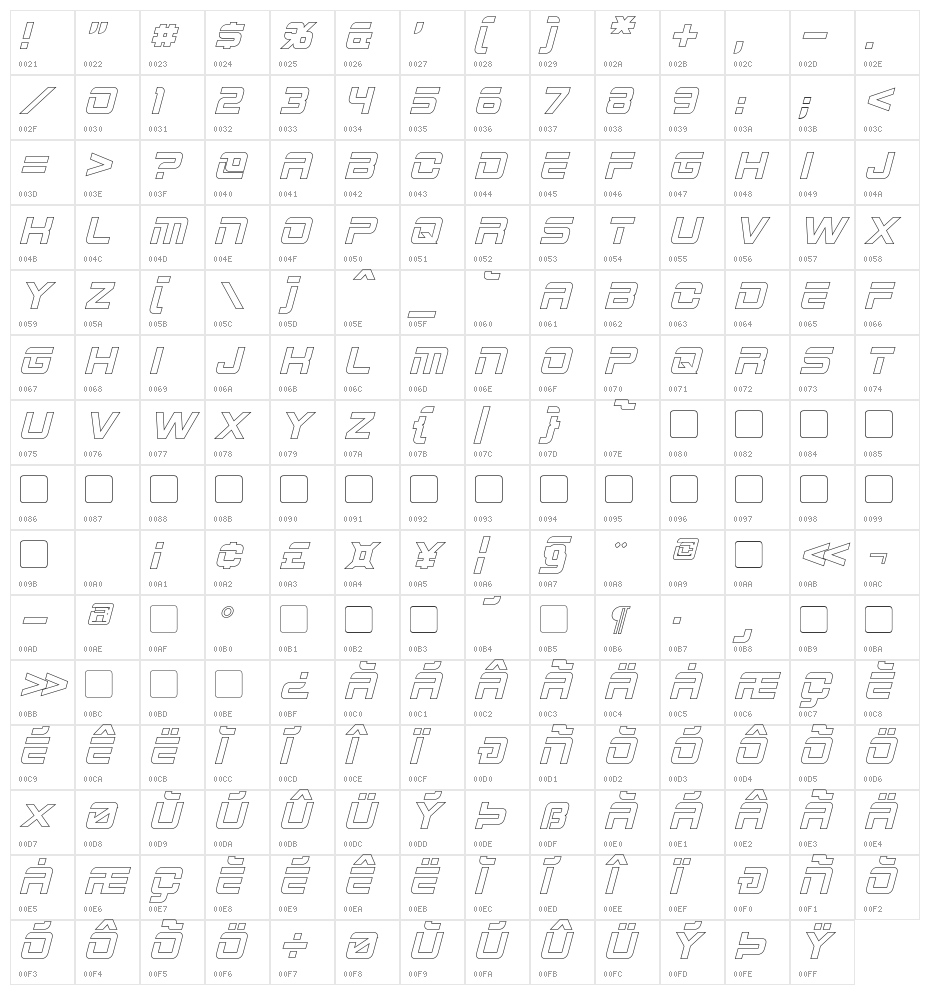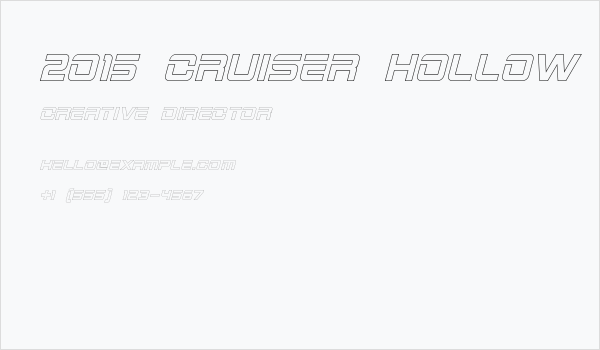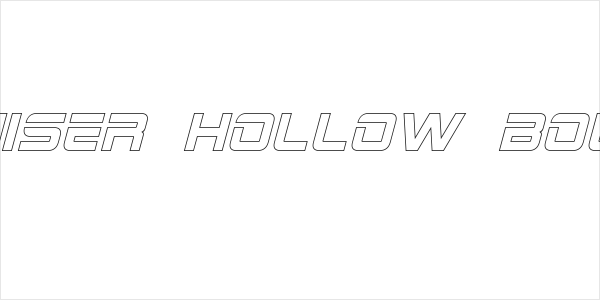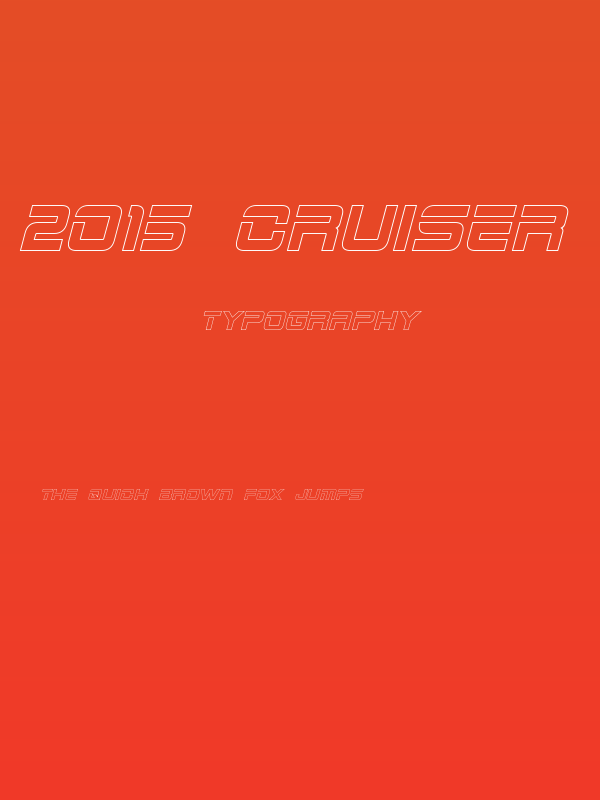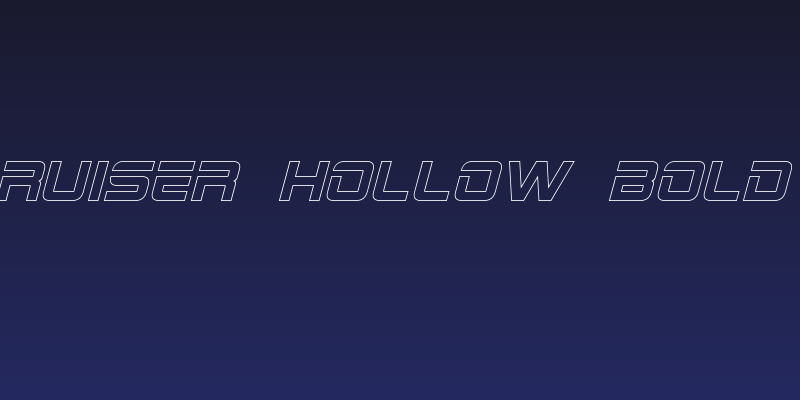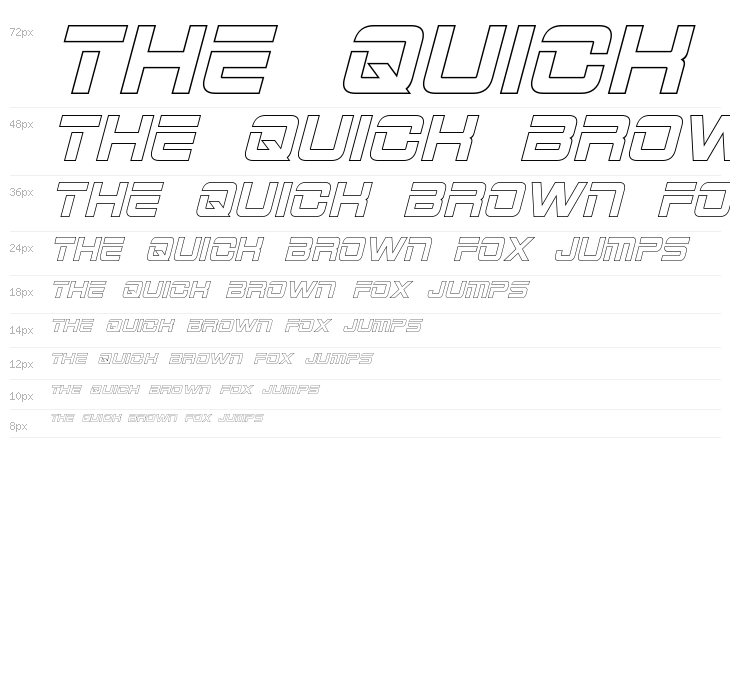
2015 Cruiser Hollow Bold Italic Font
2015 Cruiser Hollow Bold Italic Description
This font features a bold and italicized style with a hollow, outlined design. The characters are angular and geometric, giving it a futuristic and dynamic appearance. The uppercase and lowercase letters maintain a consistent style, with sharp edges and a slightly condensed form. The numbers and special characters are designed to match the overall aesthetic, making it suitable for modern and tech-oriented projects. The hollow aspect of the font adds a unique touch, allowing for creative layering and color play in design applications.
| Proposed Projects | Ideal for tech branding, futuristic posters, video game titles, and digital interfaces. |